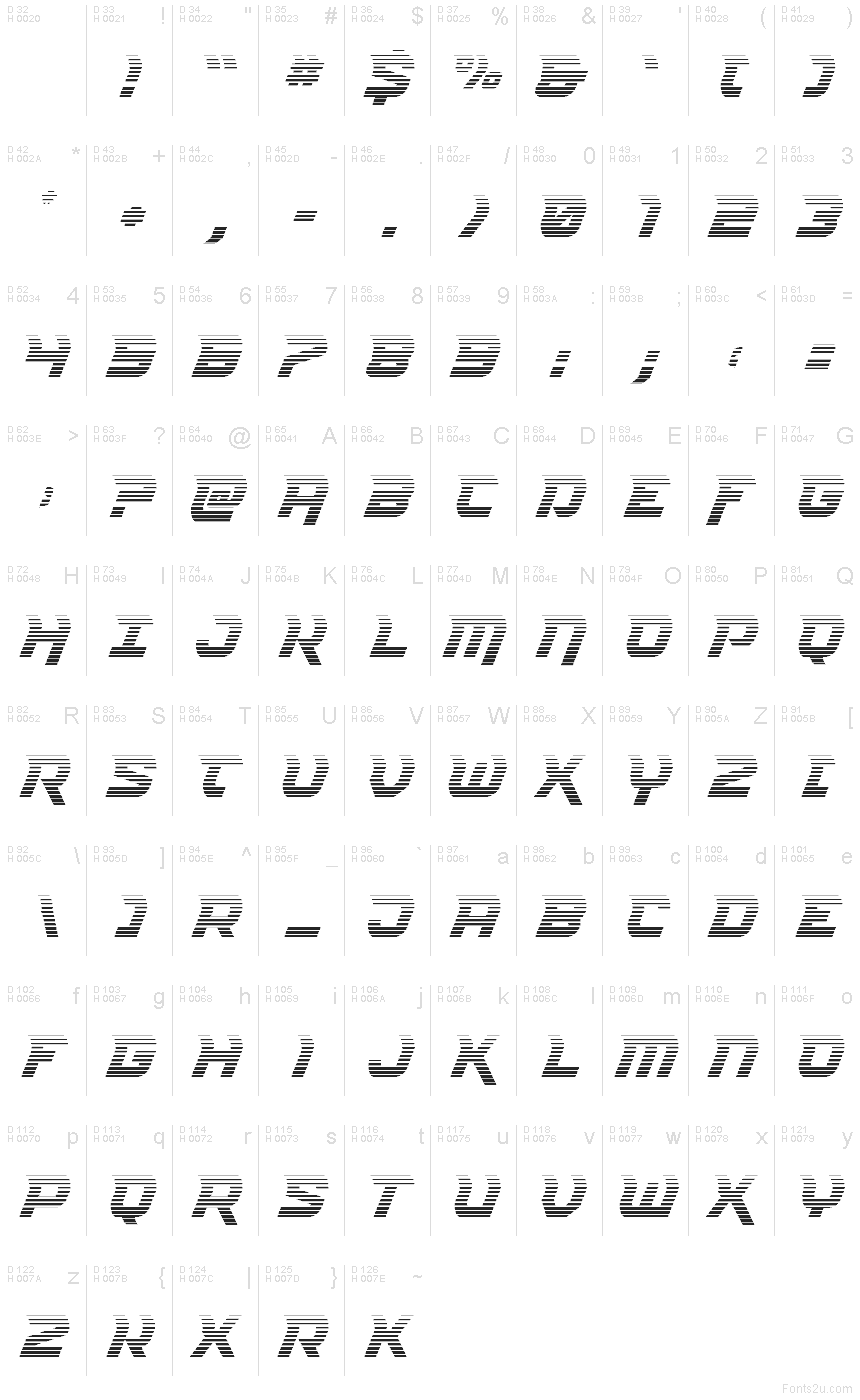
Renegent Gradient
Renegent Gradient font by Iconian Fonts is a futuristic display font. Bold, expanded, and geometric, the font features a striped pattern that speaks of an extreme minimalistic style. The design carries a modern aesthetic that is tech-inspired which makes it suitable for projects that need contemporary inspiration.
A free display typeface for both print and digital designs which can include posters, brochures, ads, movie titles, flyers etc. Websites can enjoy Renegent Gradient too whether in section titles or as part of buttons or interactive icons/texts.